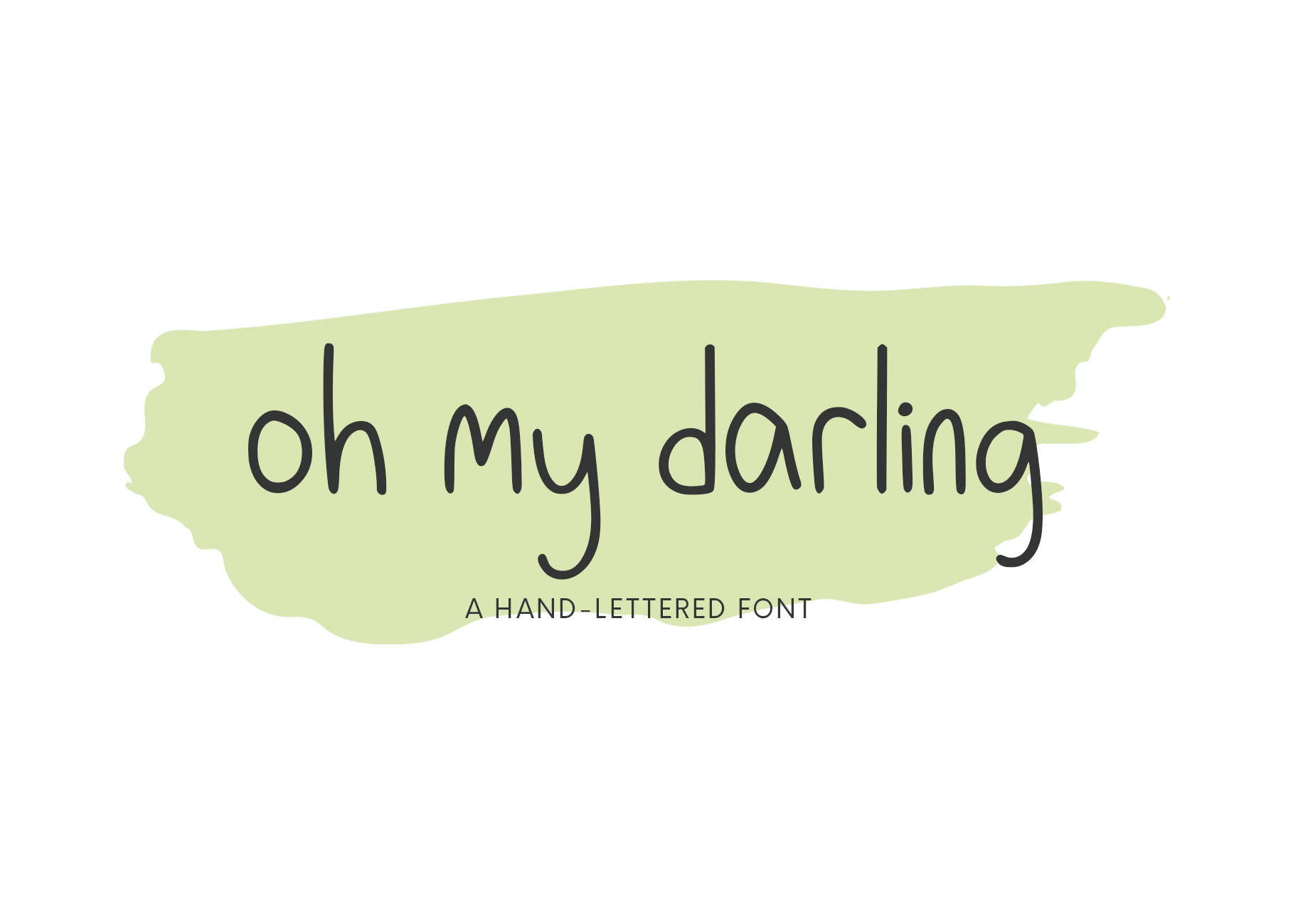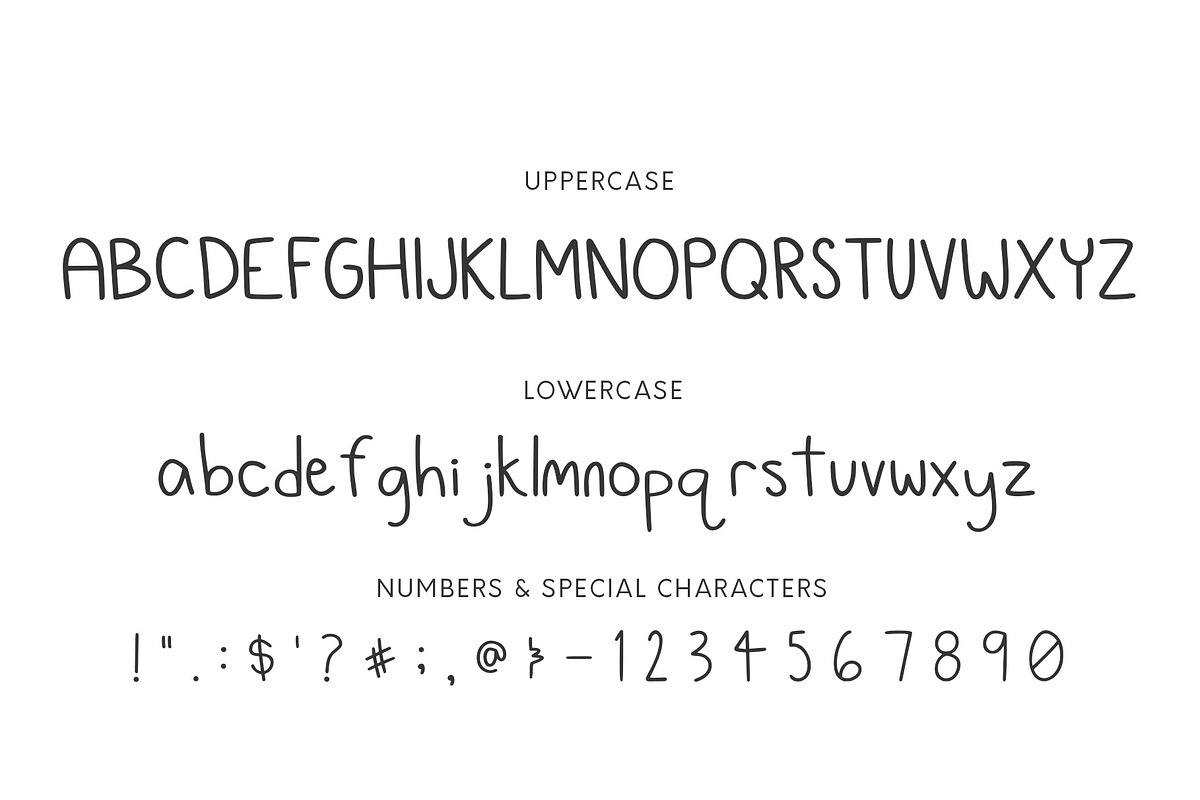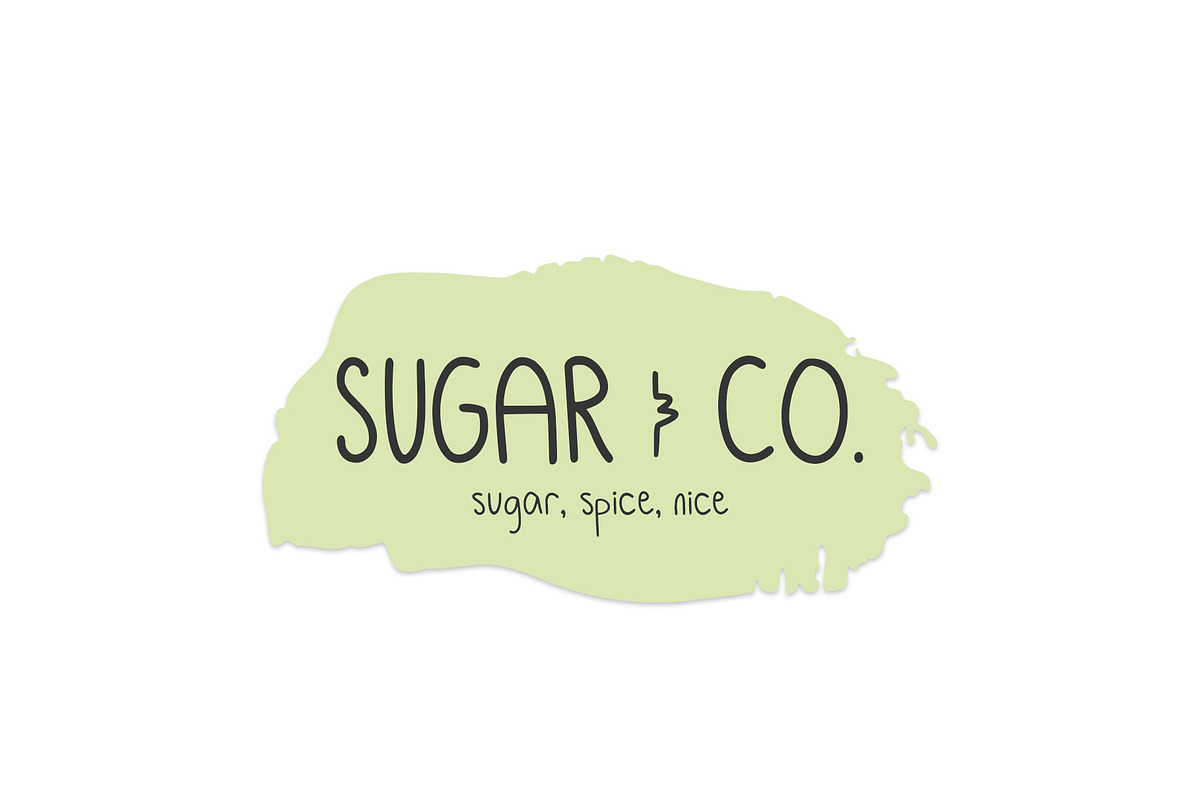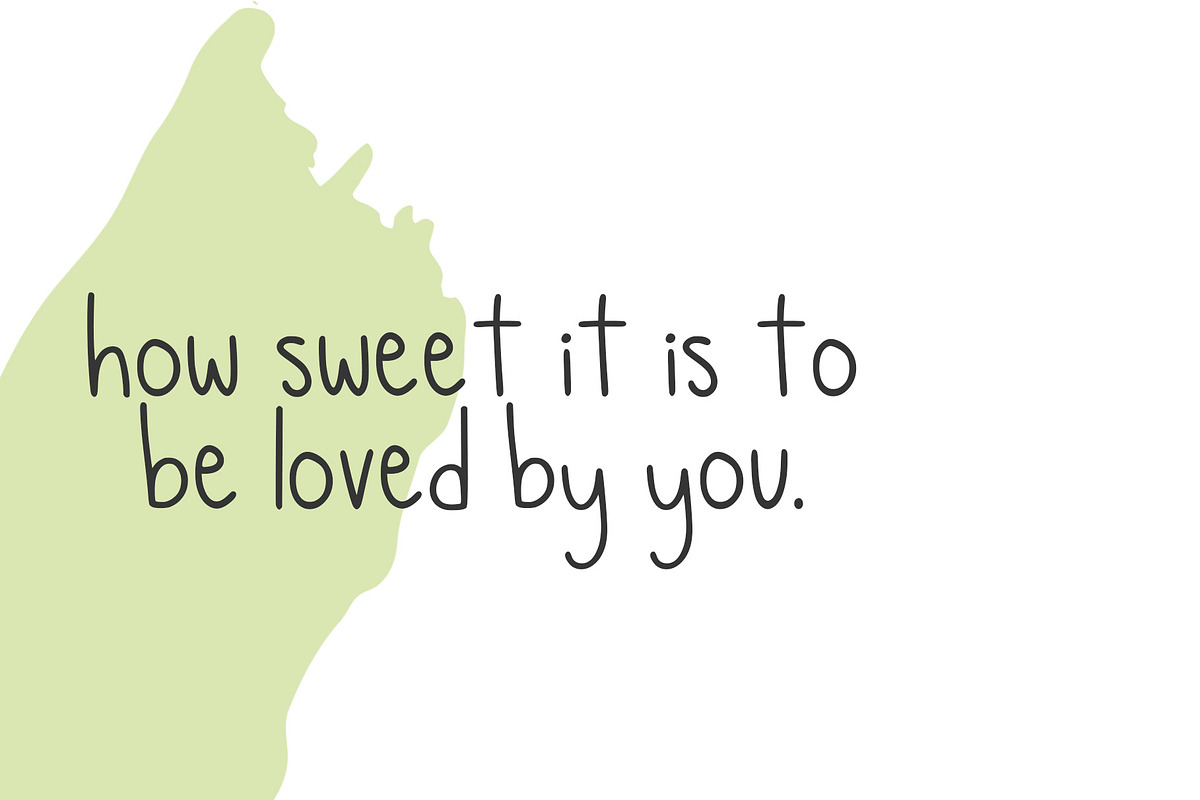
Oh My Darling, Hand-Lettered Font
Oh My Darling is a sweet and simple font that's perfect for all sorts of graphic design projects. Including web design, branding, stationery design, logos, banners and more!